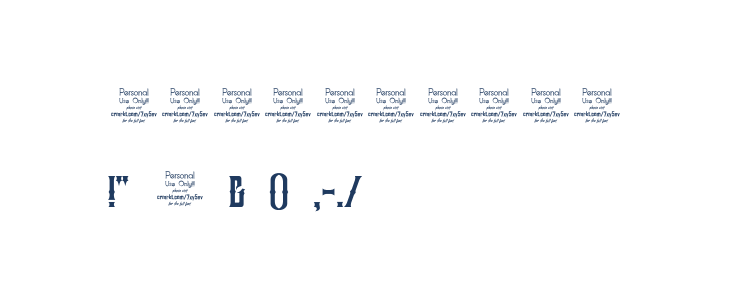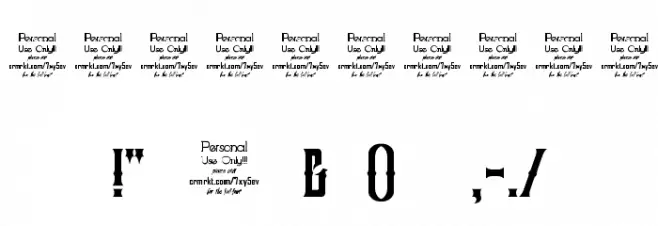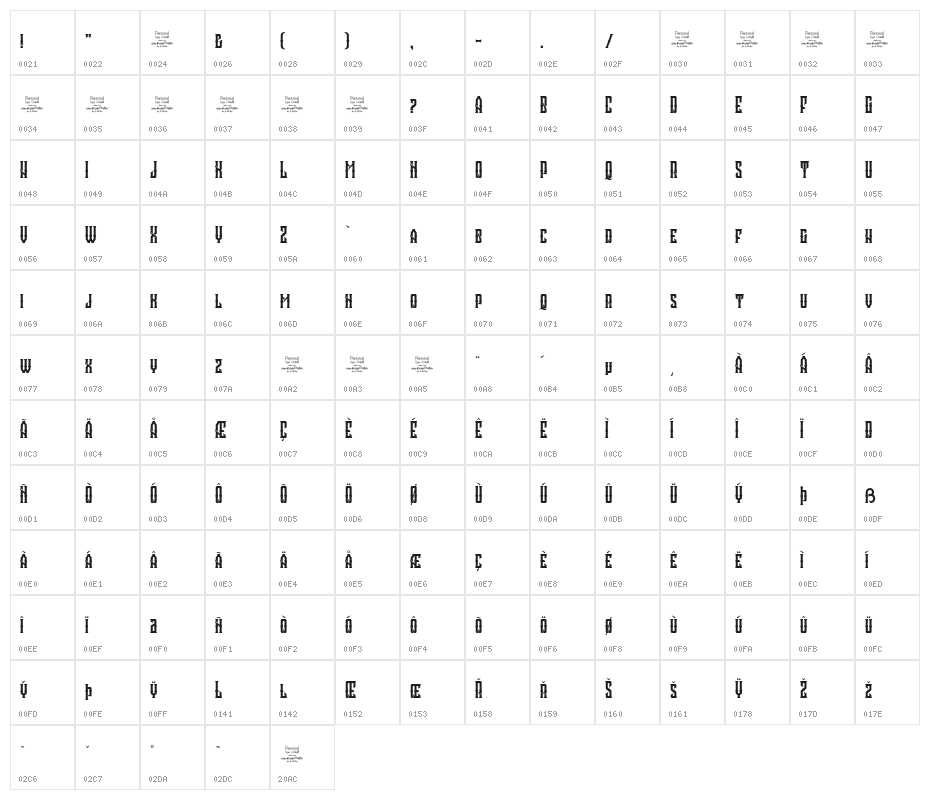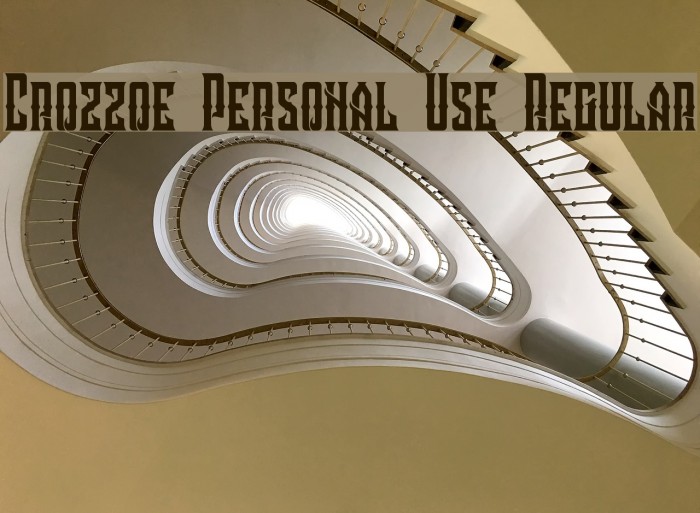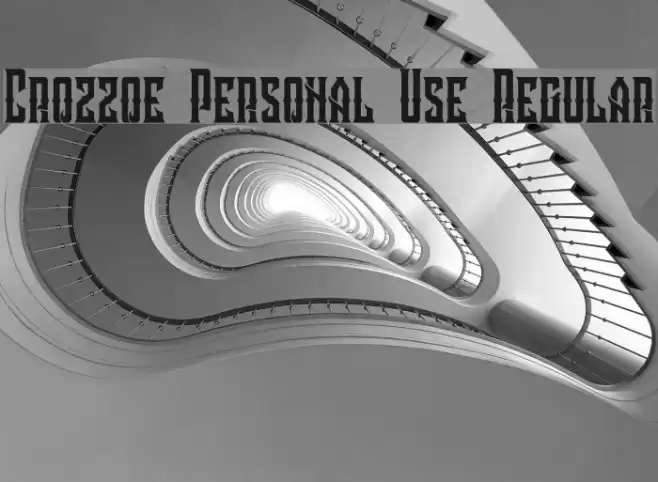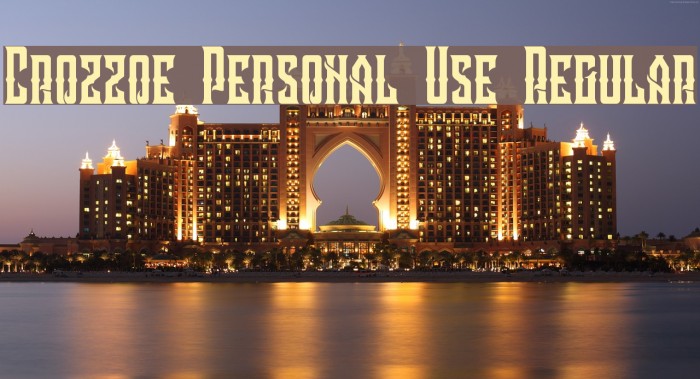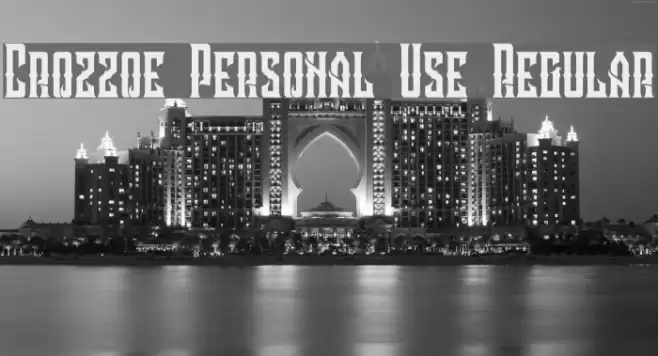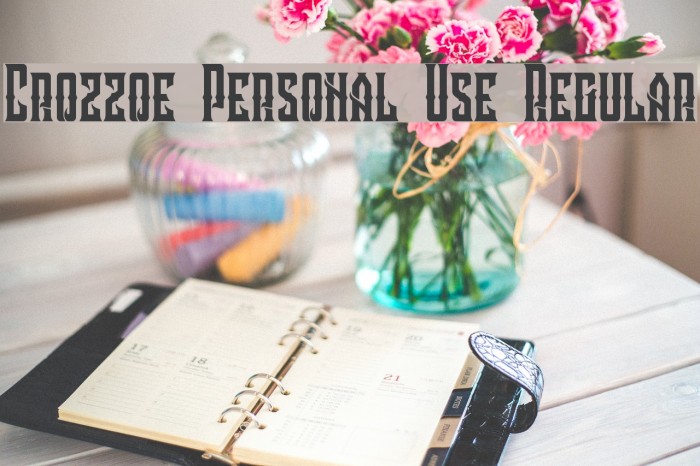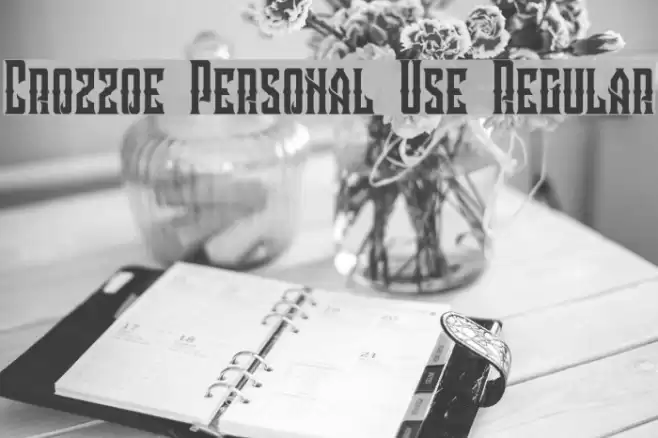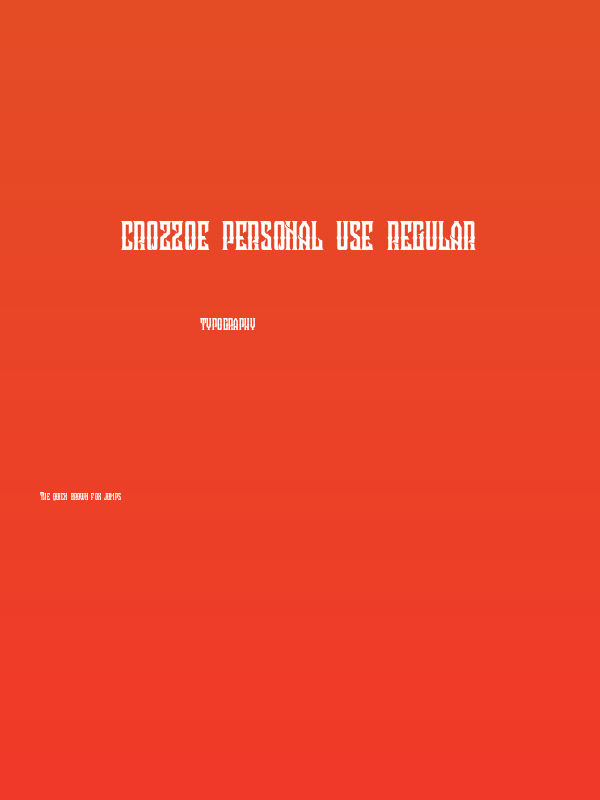
Crozzoe Personal Use Regular Font
Crozzoe Personal Use Regular Description
This font features a bold and striking design with a distinct blackletter influence. The characters are sharply angular with pronounced serifs and intricate detailing, giving it a gothic and medieval appearance. The uppercase letters are particularly elaborate, with decorative elements that enhance their visual impact. The lowercase letters maintain the same stylistic approach, ensuring consistency throughout the typeface. The numbers and special characters are equally ornate, making this font suitable for projects that require a dramatic and historical aesthetic.
| Overall Style | Gothic, Decorative |
| Proposed Projects | Ideal for use in branding, posters, book covers, and any design project that seeks a historical or gothic theme. |